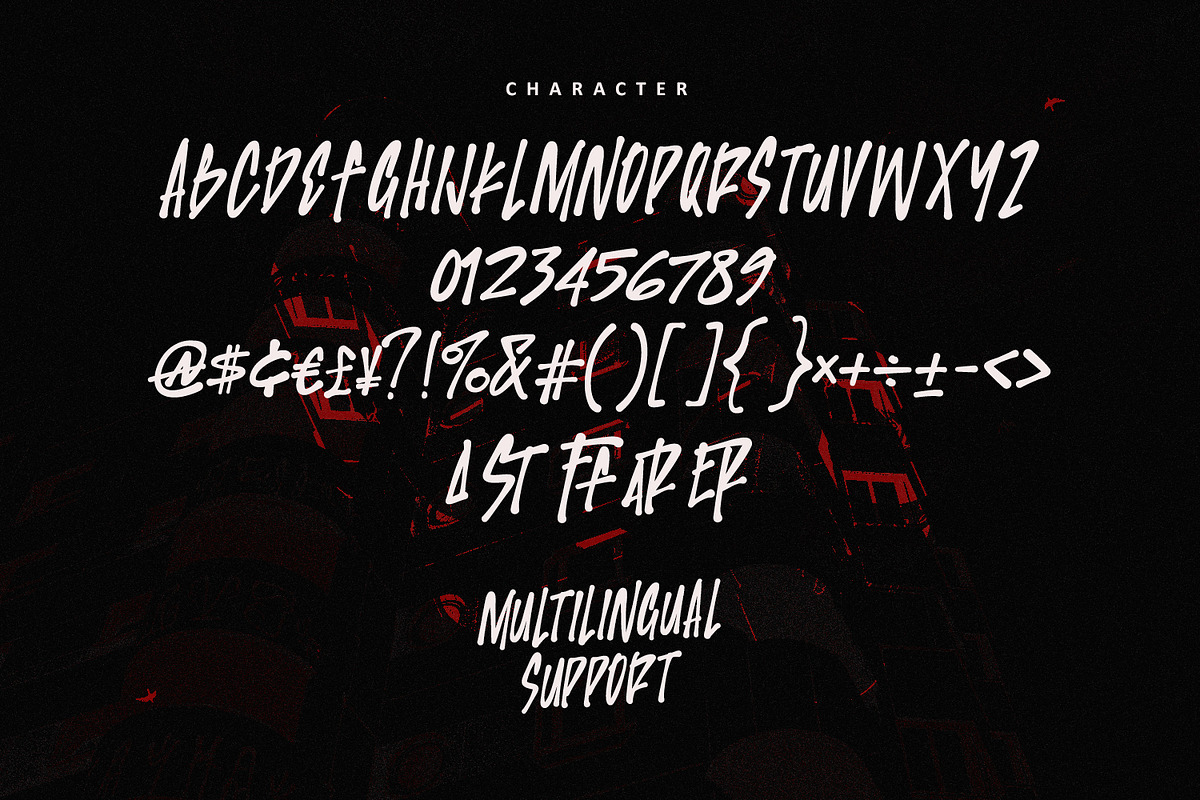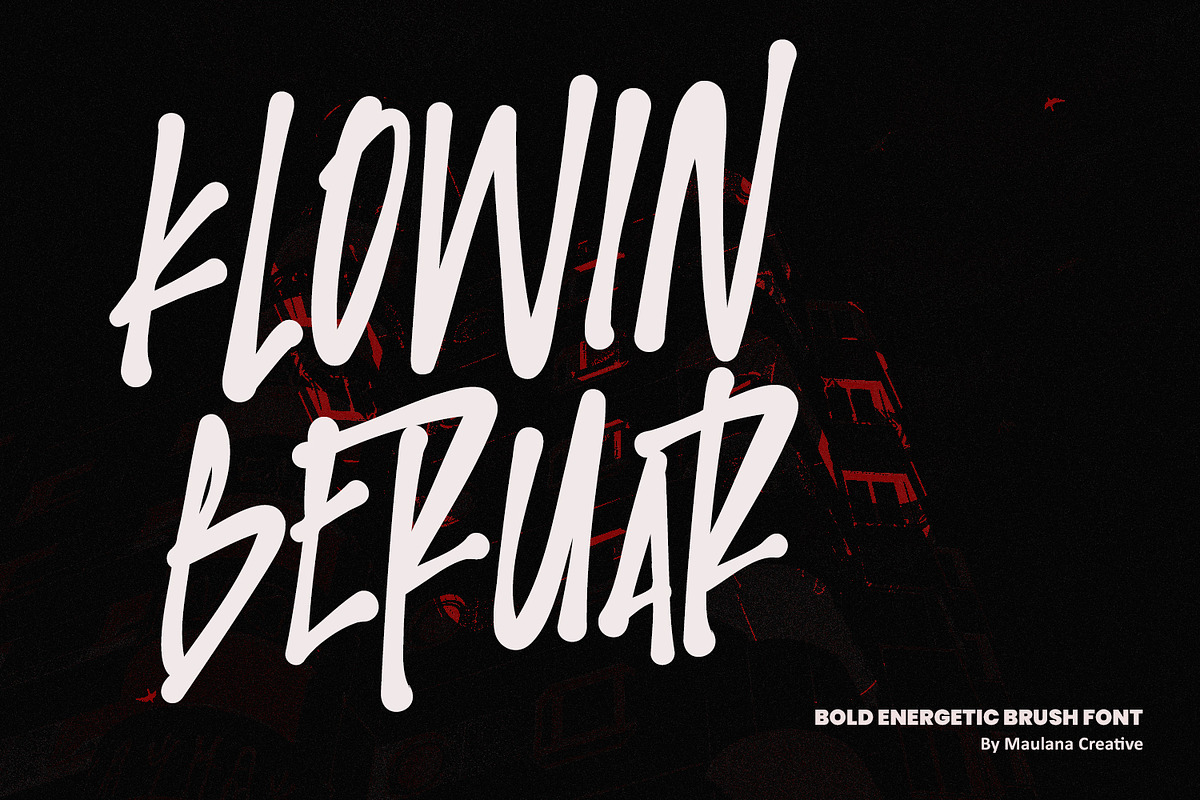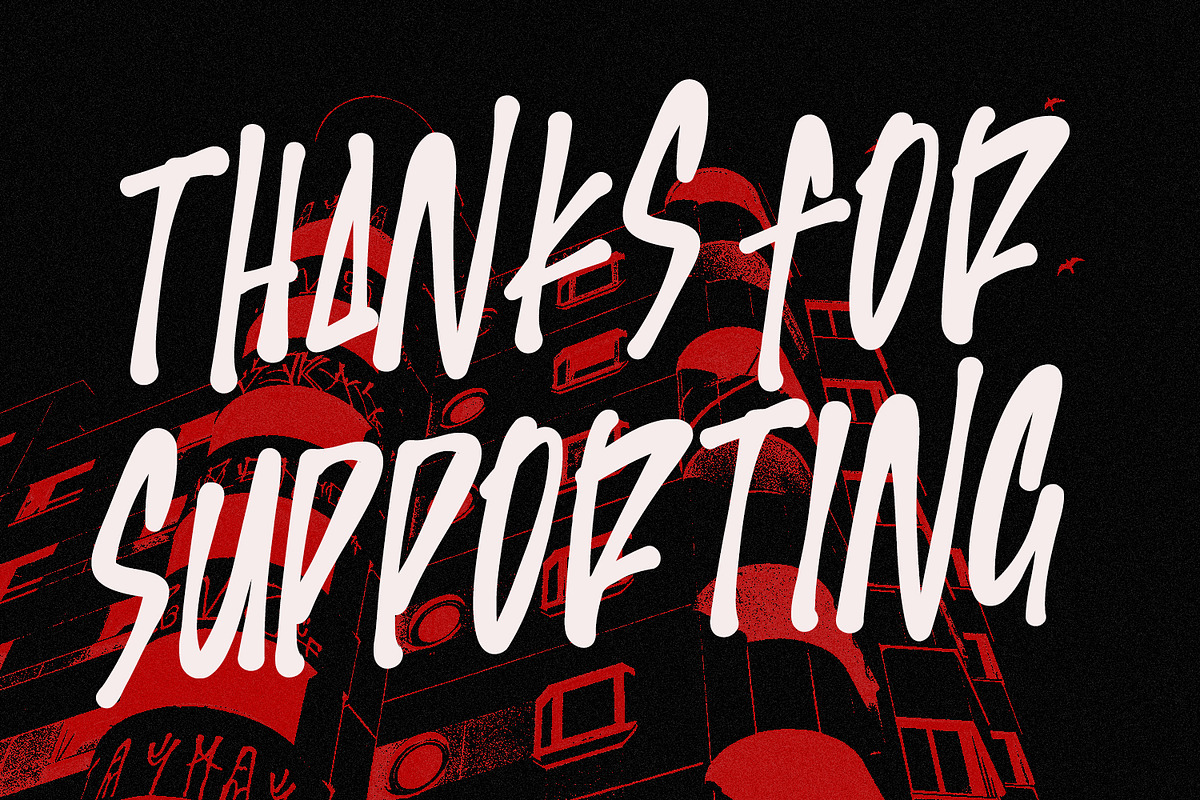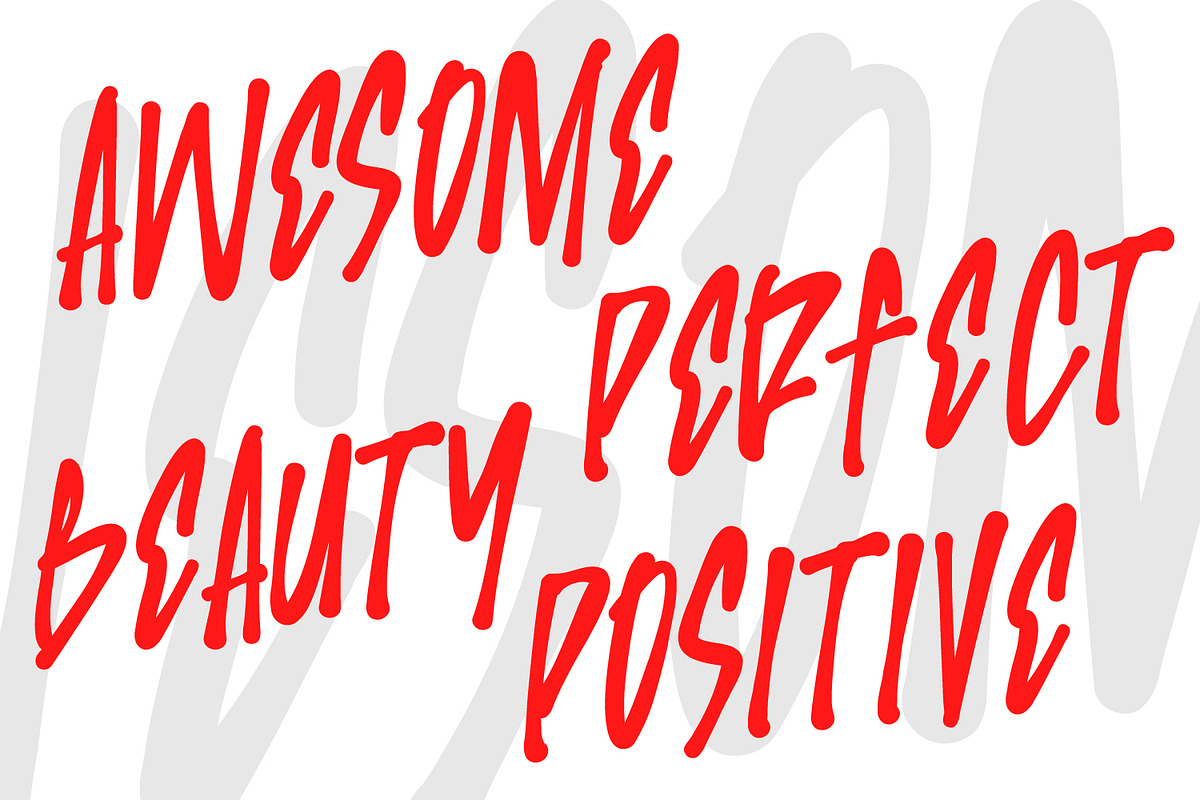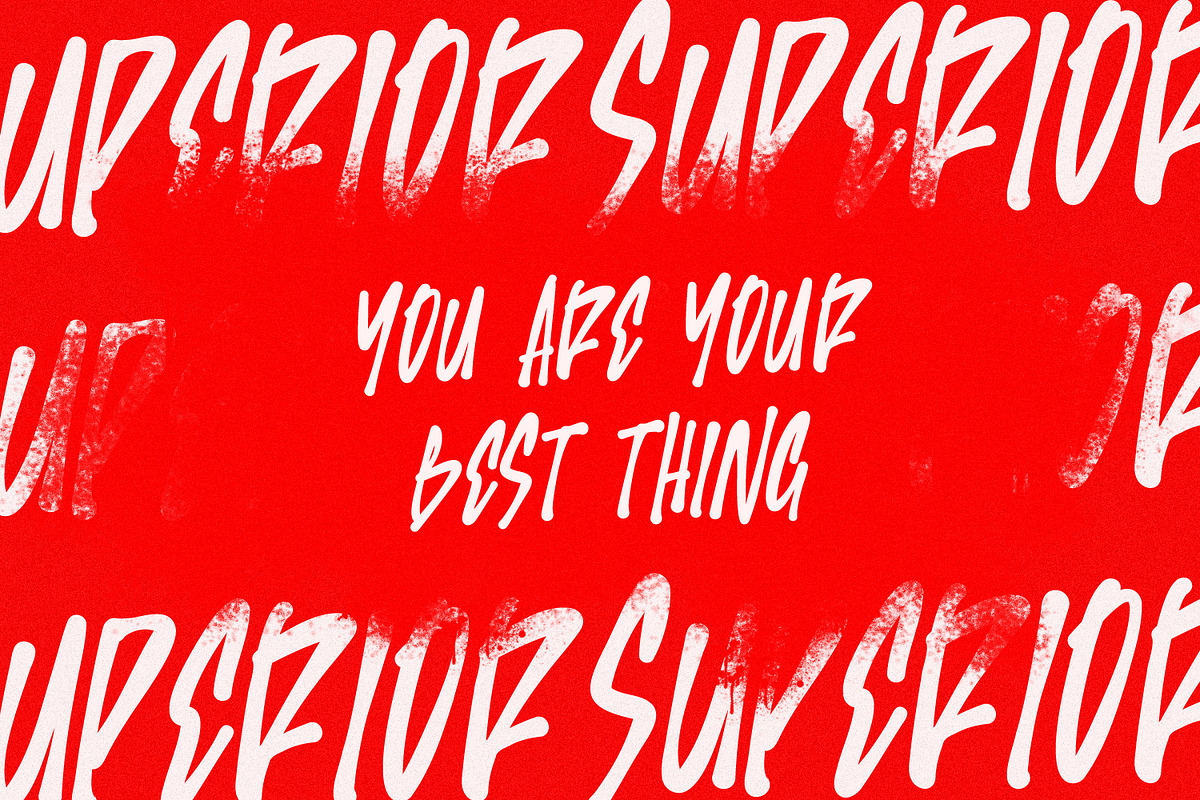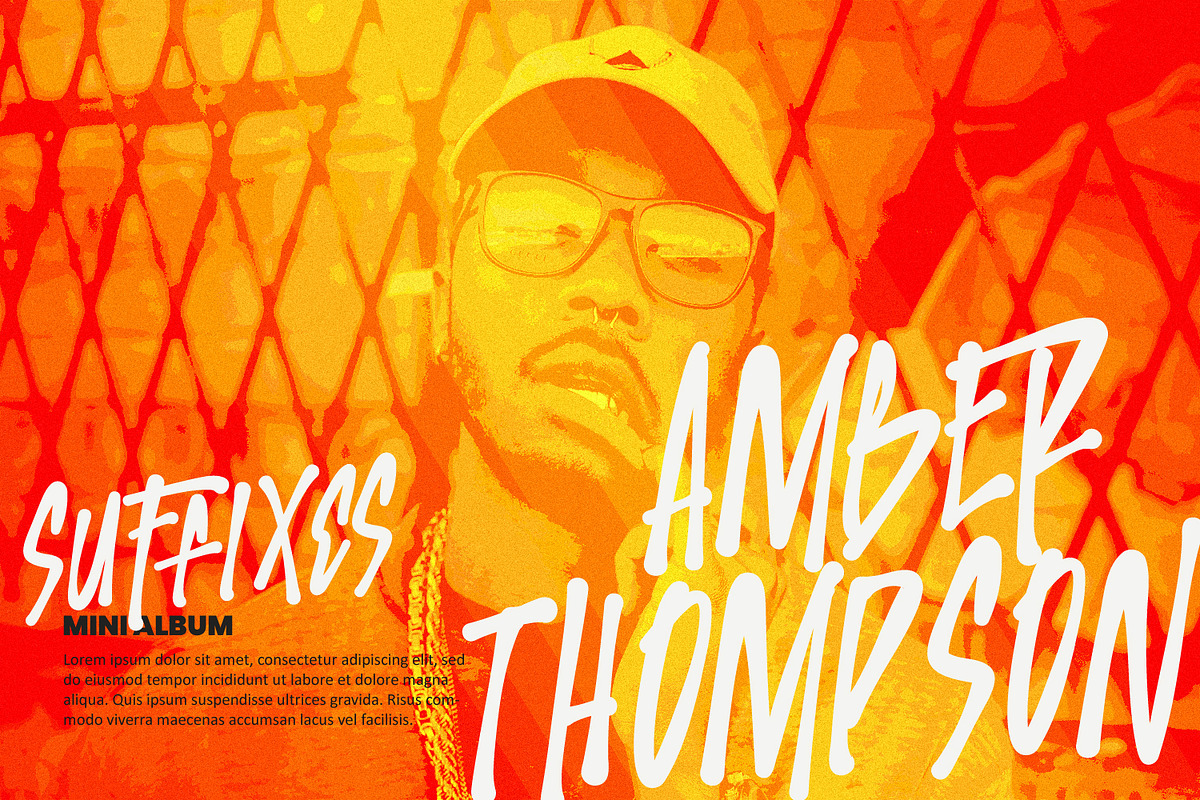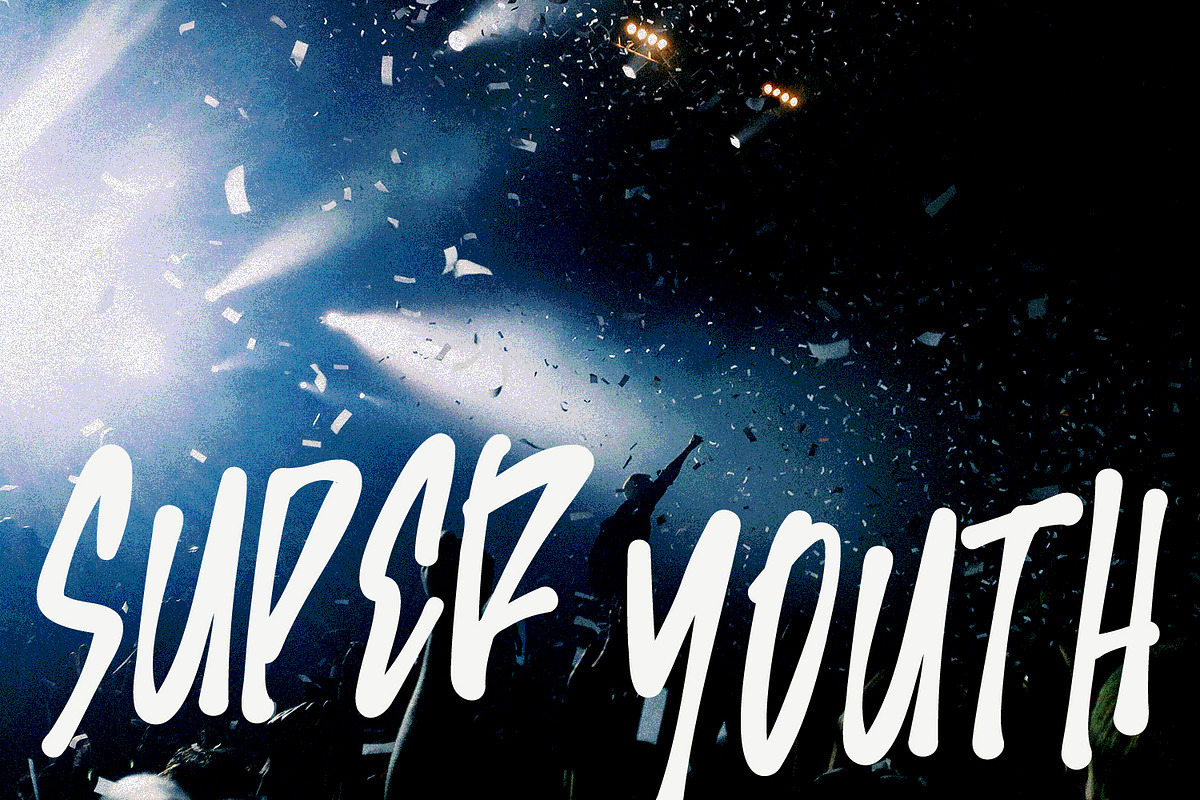
Klowin Beruar Bold Energetic Brush
Unleash your creativity with Klowin Beruar, a powerful and dynamic display font. With its bold, hand-drawn brush strokes, this font captures a raw, authentic energy perfect for making a statement. Klowin Beruar is more than just a typeface; it's an attitude.
The free-flowing, urban aesthetic makes it ideal for projects that demand attention. Use it for album covers, edgy streetwear designs, posters, social media graphics, or event promotions. Its versatility shines across a range of applications, from branding to packaging.
- Handcrafted Feel: Gives your design an authentic, artistic touch.
- Uppercase: Includes a complete set of both for full design flexibility.
- Punctuation & Symbols: Comes with a full range of punctuation, numbers, and symbols.
- Multilingual Support: Broad language support for global projects.
Bring a rebellious, youthful spirit to your work. Klowin Beruar is your go-to font for designs that are bold, unforgettable, and full of life.
- Ligatures and Alternate Style